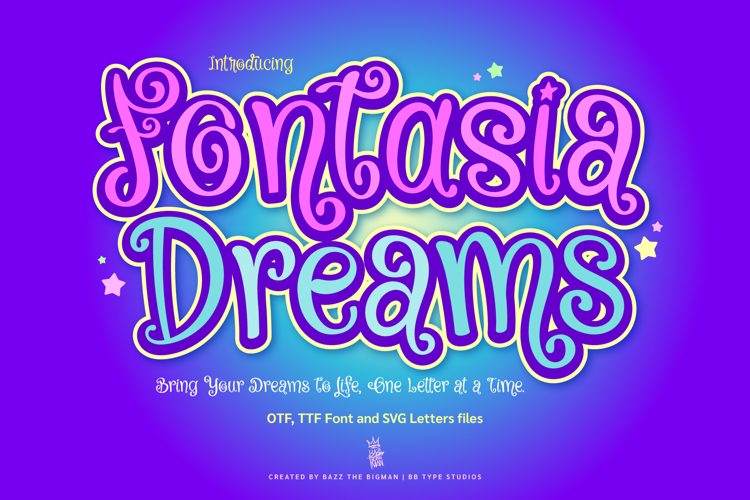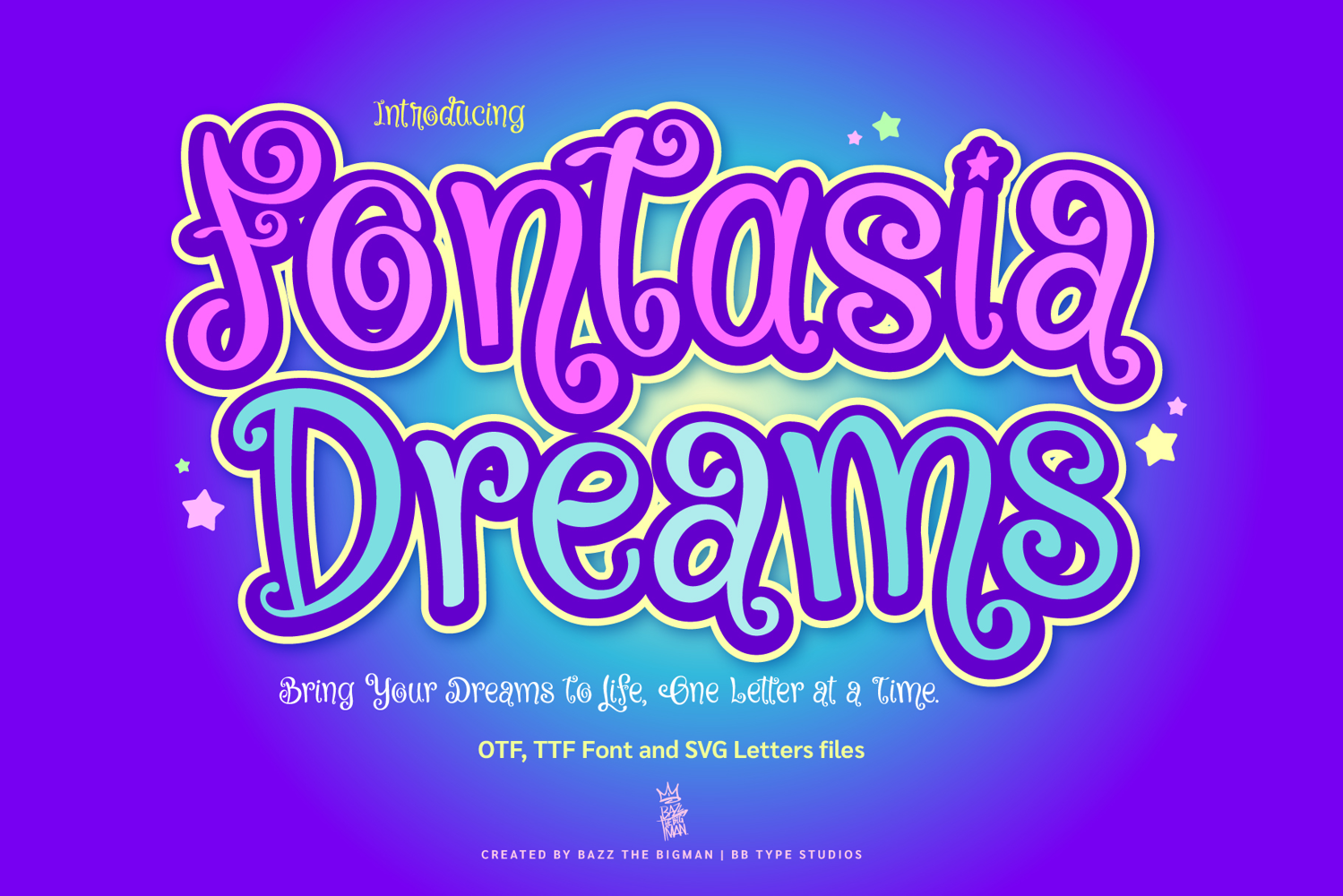
Fontasia Dreams
Usher in a captivating charm to your designs with Fontasia Dreams. This hand-sketched font delivers a riveting blend of elegance, warmth, and a hint of enchantment. With its fluid curves and delicate nuances, it serves as an ideal touch for endearing Christmas cards, sophisticated wedding invitations, vivid branding tasks, expressive packaging, poignant quotes and creative DIY crafts. So, let Fontasia Dreams infuse your creations with a splash of unique whimsy and elaborate detail.